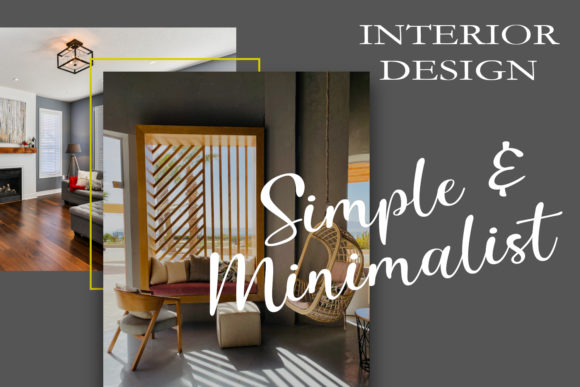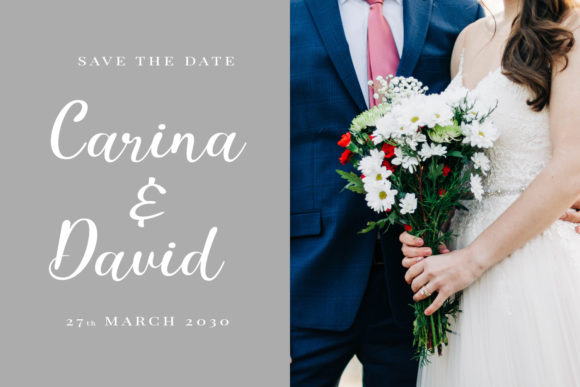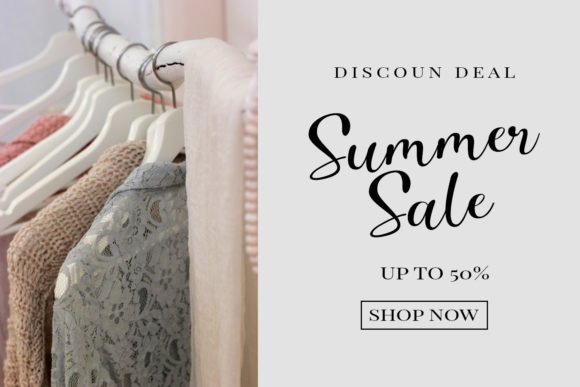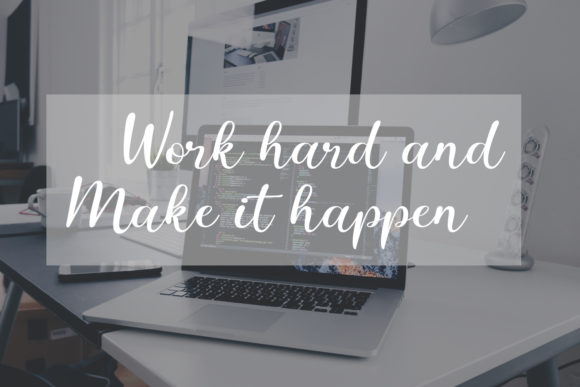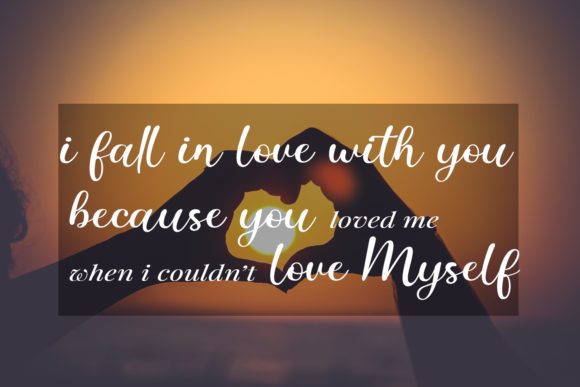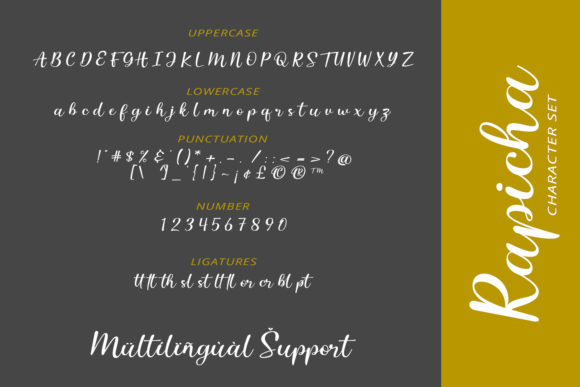
Introduction to Rapicha Font
Have you ever stared at a blank page, waiting for inspiration to strike, only to have a burst of creativity hit you when you least expect it? For designers, this moment of clarity can be a game-changer. It’s the moment when a new idea or concept emerges, and everything falls into place. For those who crave this feeling, we’re excited to introduce the Rapicha Font, a truly exquisite handwritten font that’s sure to become a favorite.
With its classy calligraphic influences and contemporary feel, the Rapicha Font is a valuable design resource for any creative project. Whether you’re working on branding, logo design, or product packaging, this high-quality font is perfect for adding a touch of elegance and sophistication. Plus, with its transparent background and PUA encoding, you’ll have access to all the glyphs and swashes you need to bring your designs to life.
Key Features of Rapicha Font
- Perfect for digital designs that require a clean and modern look, such as website headers, social media graphics, and more
- Unique characteristics and stylish typography make Rapicha Font a standout choice for designers looking to elevate their creative project
Honest Review: Rapicha Font
As a designer, I’m always on the lookout for high-quality design resources to elevate my creative projects. Recently, I had the chance to experiment with the Rapicha Font, and here’s my honest review.
- ✨ Elegant and modern aesthetic: The Rapicha Font has a unique and sleek design that adds a touch of sophistication to any project.
- ✨ High-quality typography: The font is well-crafted, making it perfect for headings, titles, and body text.
- ⚠️ Limited font sizes: The font doesn’t support a wide range of font sizes, which might be a limitation for some designers.
- ⚠️ Transparent background support: While the font itself looks great, I found that it doesn’t work well with transparent backgrounds, which can be a problem for designers who work with images or videos.
Overall, I think the Rapicha Font is a great addition to any designer’s toolkit. While it has its limitations, its high-quality typography and elegant design make it a great choice for creative projects. With a little bit of creativity, you can work around the limitations and achieve amazing results.
Rapicha Font
The Rapicha Font is a high-quality design resource perfect for creative projects that require a unique touch. This versatile font features a transparent background, making it easy to customize and integrate into various designs.
Getting the Most Out of Rapicha Font
For optimal results, use Rapicha Font on a high-quality design project that showcases its unique features. Experiment with different font sizes, colors, and styles to find the perfect combination for your creative project.
The Rapicha Font is ideal for various design projects, including:
- Infographics and data visualizations
- Print materials and business cards
- Web design and digital marketing materials
Can I use the Rapicha Font with a transparent background?
Yes, the Rapicha Font is designed to work well with transparent backgrounds. Since the font has a transparent background, you can easily place it over any image or design element without worrying about background conflicts. However, keep in mind that some design applications may not support transparent backgrounds or may require additional settings to enable this feature.